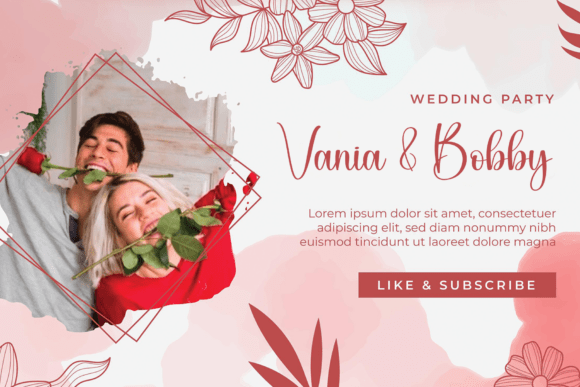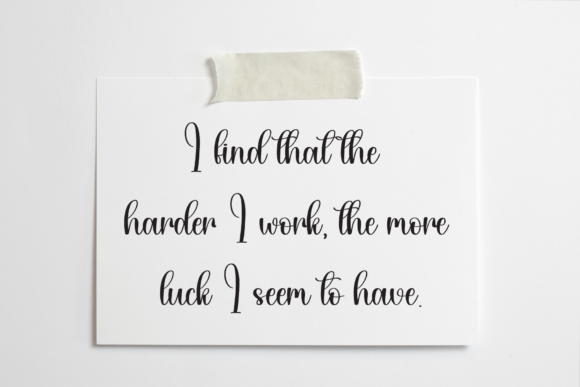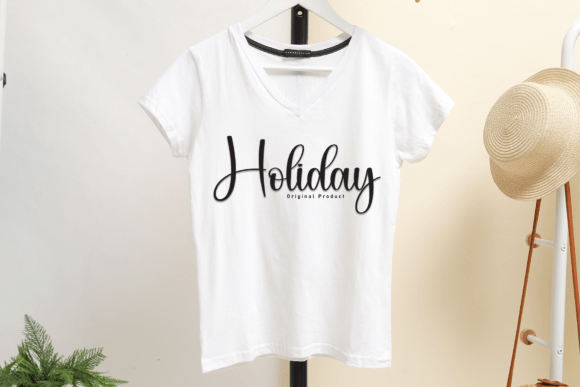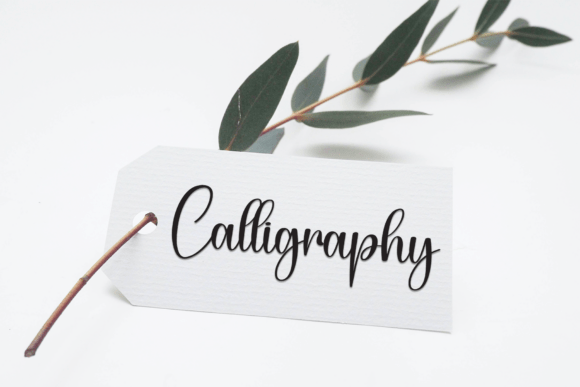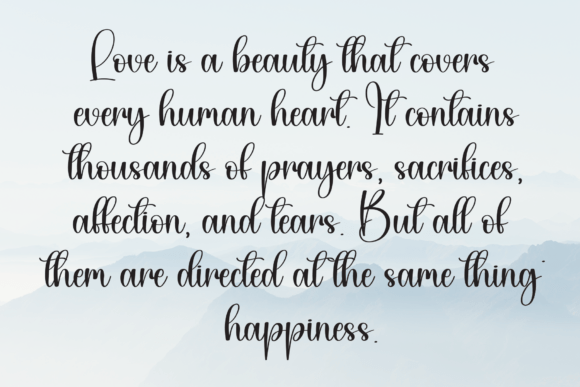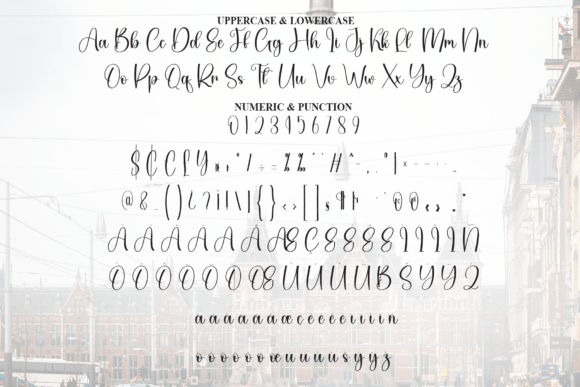
Introducing Amsterdam Font: Elevate Your Designs with Elegance and Modern Flair
In the world of typography, few fonts manage to strike a balance between elegance and modernity as effectively as the Amsterdam Font. This stylish handwritten script font has been turning heads with its unique blend of classic sophistication and contemporary charm. Whether you’re a designer looking to elevate your branding, a crafty individual seeking the perfect font for invitations, or a social media enthusiast aiming to make your content stand out, Amsterdam Font is an exceptional choice.
The Essence of Amsterdam Font
Amsterdam Font is characterized by its flowing strokes and organic curves, which bring a sense of warmth and sophistication to any project. Its design is meticulously crafted to provide a personal, refined touch that is both effortless and charming. This font is not just a typeface; it’s an expression of style and elegance that can transform your designs from ordinary to extraordinary.
Key Features of Amsterdam Font
- Handwritten Script Style: Amsterdam Font boasts a beautiful, handwritten script style that adds a personal touch to any design.
- Elegant and Modern: It combines elegance with a modern flair, making it versatile for various design needs.
- Flowing Strokes and Organic Curves: The font’s design features flowing strokes and organic curves that contribute to its warm and sophisticated feel.
- Versatile: Suitable for a wide range of projects including branding, invitations, social media content, and more.
- Effortless Charm: Adds a refined touch with an effortless charm that captivates audiences.
Applications of Amsterdam Font
The versatility of Amsterdam Font makes it an excellent choice for various applications:
Branding
In the realm of branding, establishing a unique identity is crucial. Amsterdam Font can help businesses stand out with its elegant and modern appeal. It’s perfect for logos, business cards, and packaging designs where making a lasting impression is key.
Invitations
For crafty individuals and event planners, Amsterdam Font can add a touch of sophistication and charm to invitations. Whether it’s a wedding, a birthday party, or a corporate event, this font ensures your invitations are memorable.
Social Media
In the digital age, social media content needs to be engaging and visually appealing. Amsterdam Font can elevate your social media posts, stories, and banners, making them stand out in a crowded digital landscape.
Why Choose Amsterdam Font?
With numerous fonts available, why should Amsterdam Font be your choice? Here are a few compelling reasons:
- Unique Style: Amsterdam Font offers a unique blend of elegance and modernity that is hard to find.
- High Versatility: Its versatility means you can use it across various projects and mediums.
- Easy to Read: Despite its elegant and cursive nature, Amsterdam Font remains easy to read, making it practical for a range of applications.
- Support for Multiple Languages: Many fonts like Amsterdam Font offer support for multiple languages, making it a great choice for global brands and projects.
Amsterdam Font is more than just a typeface; it’s a design statement. Its elegant and modern characteristics make it a valuable asset for designers and crafters looking to add a touch of sophistication and charm to their projects. Whether you’re working on branding, invitations, social media content, or any other design project, Amsterdam Font is sure to exceed your expectations. With its flowing strokes, organic curves, and effortless charm, Amsterdam Font is poised to become a favorite in the world of typography.